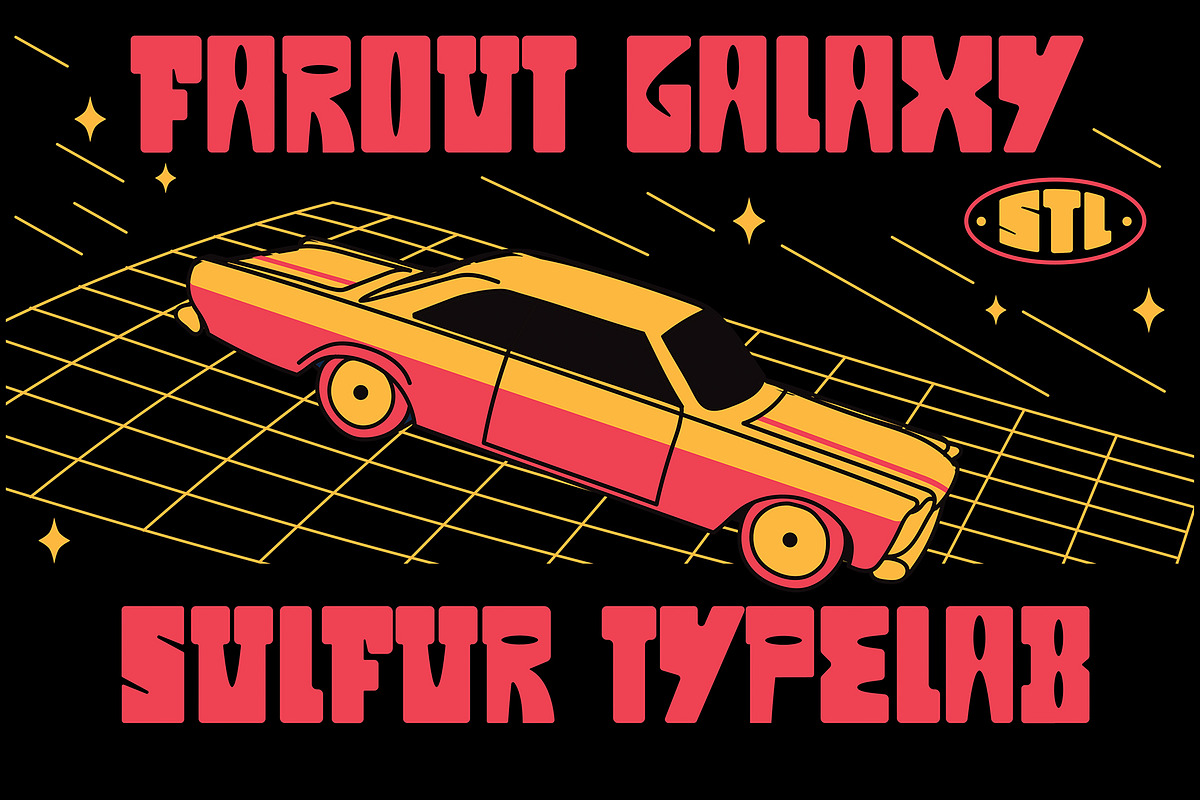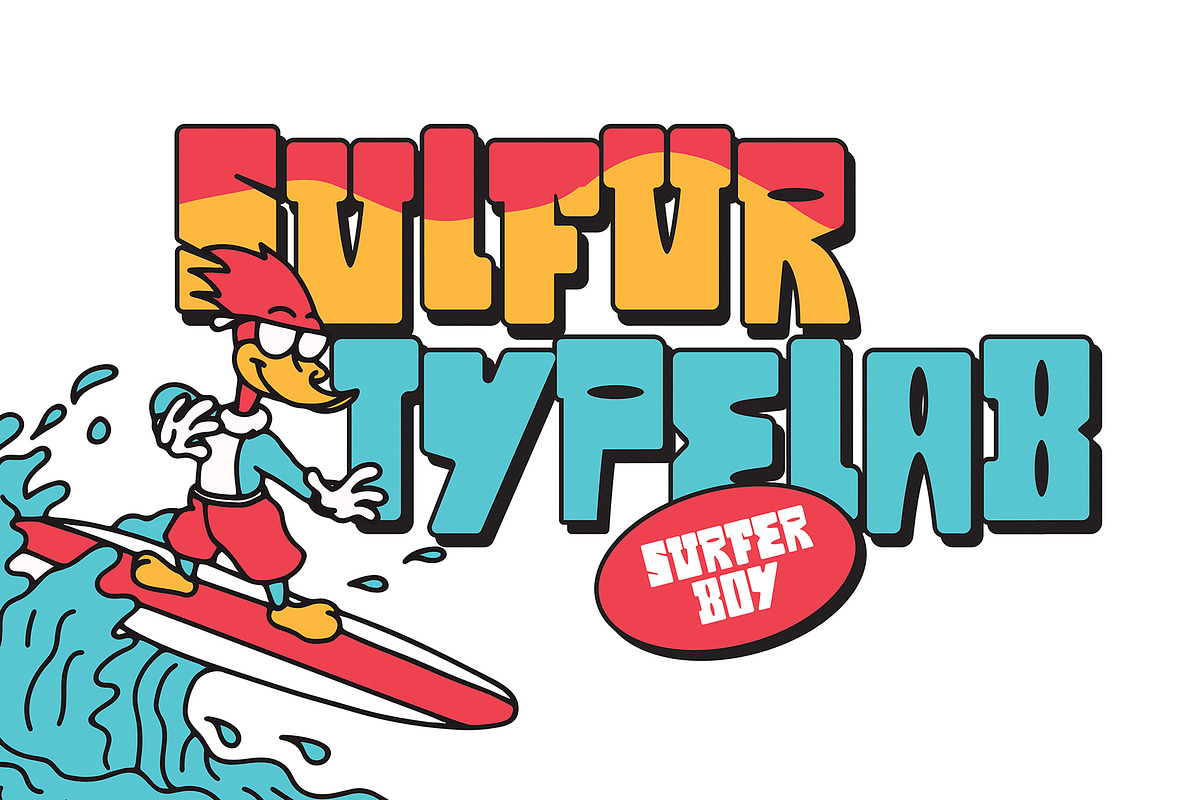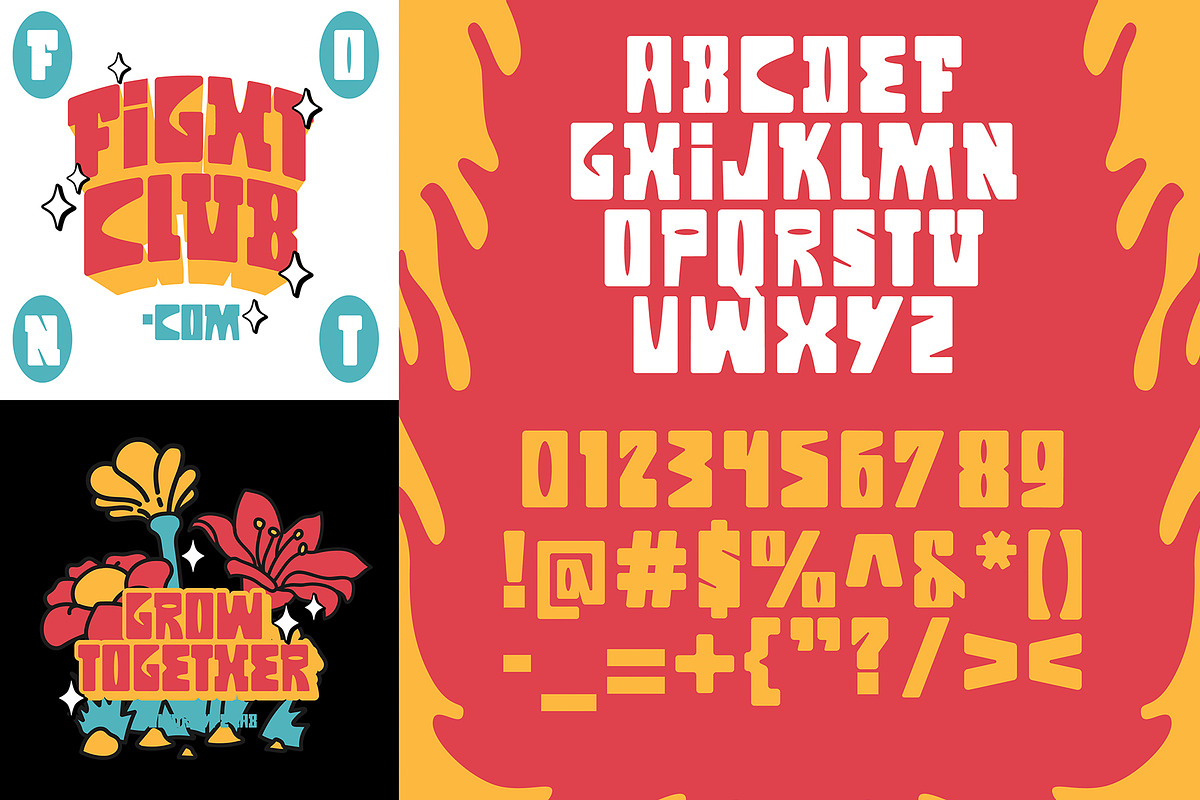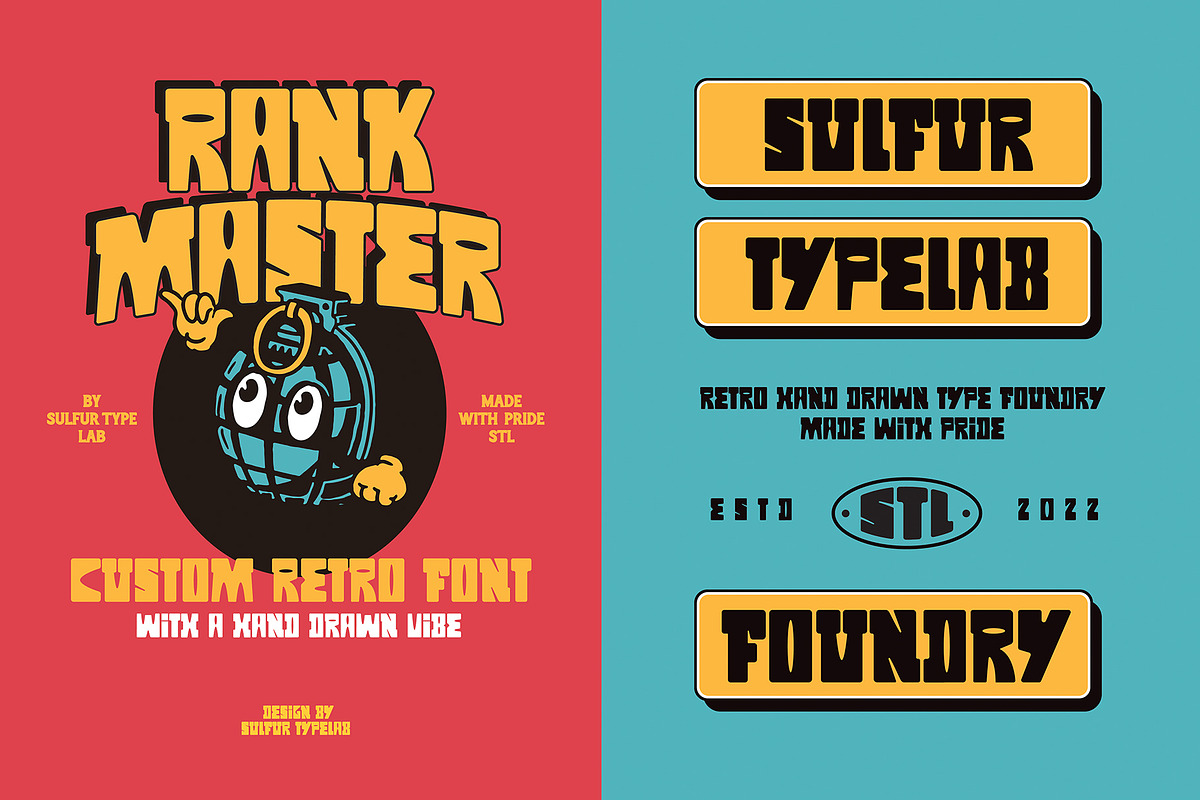
STL Rank Master
Rank Master
This is a handwritten font I created in a 50s comic book style. Looks great for merchandise, logos, quotes, art, signs, titles, posters, and handmade touches. Enjoy!